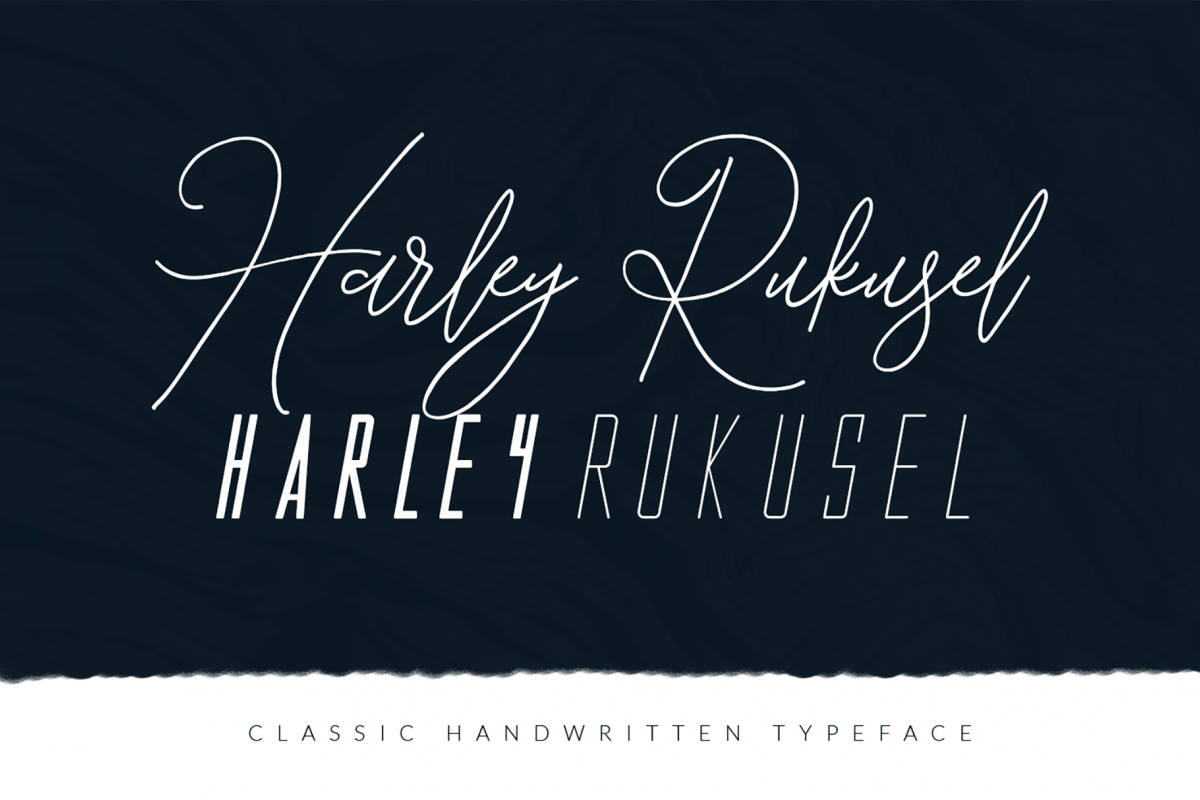
Harley Rukusel | Font Trio
Harley Rukusel Trio Font font is a hand-made font created by using thick marker. It is a signature font that the thickness of lines are charming. It can be easily used for t-shirts, bags, invitations and so on... It is becoming more interesting with special characters. Thank you for viewing it. We hope you would like it. And inclueding extra 2 font for you.
GREAT FOR
-Characteristic company logos
-Blog pages
-Logo of brands
-Projects you need to utilize a premium font
-The projects that require a font including lots of alternates.